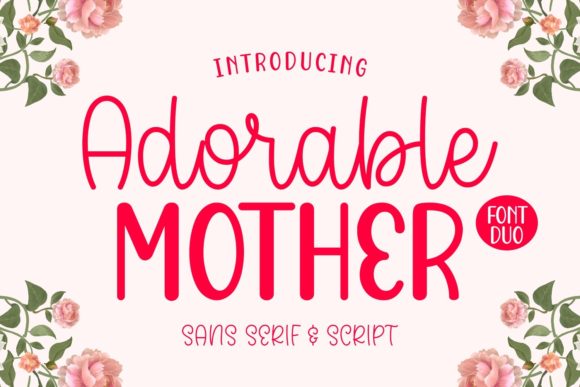
Presenting Adorable Mother Font, the ultimate script font that captivates with its irresistible charm and childlike innocence. This enchanting typeface, meticulously crafted by Keithzo (7NTypes), is a burst of delightful inspiration, ready to transform your creative projects into whimsical masterpieces.
Step into a world of boundless imagination and heartfelt expression with Adorable Mother Font. Its playful curves and charming details evoke a sense of nostalgia and joy, making it the perfect choice for adding a touch of sweetness to any design. Let your words dance and twirl in perfect harmony, captivating your audience's hearts with every stroke.
Dive into a myriad of possibilities with the versatile Adorable Mother Font. Let it inspire you as you craft heartwarming invitations, playful posters, cheerful social media graphics, and captivating branding materials. The font's enchanting personality shines through in every application, leaving a lasting impression that speaks volumes.
Explore the endless storytelling potential of Adorable Mother Font. Its playful nature lends itself beautifully to children's books, whimsical illustrations, and enchanting logos. Transform your designs into magical realms where imagination reigns supreme and dreams take flight.
Embrace the power of emotional connection with Adorable Mother Font. Its friendly and approachable demeanor fosters a sense of trust and warmth, making it ideal for reaching out to customers, building relationships, and leaving a positive impact. Engage your audience with a font that speaks to their hearts and creates a lasting bond.
Unleash your creativity and let your imagination soar with Adorable Mother Font. Its versatile charm and boundless possibilities make it the perfect companion for designers, crafters, and anyone seeking to add a touch of enchantment to their creations. Download Adorable Mother Font today and embark on a journey of artistic discovery that will leave you spellbound.